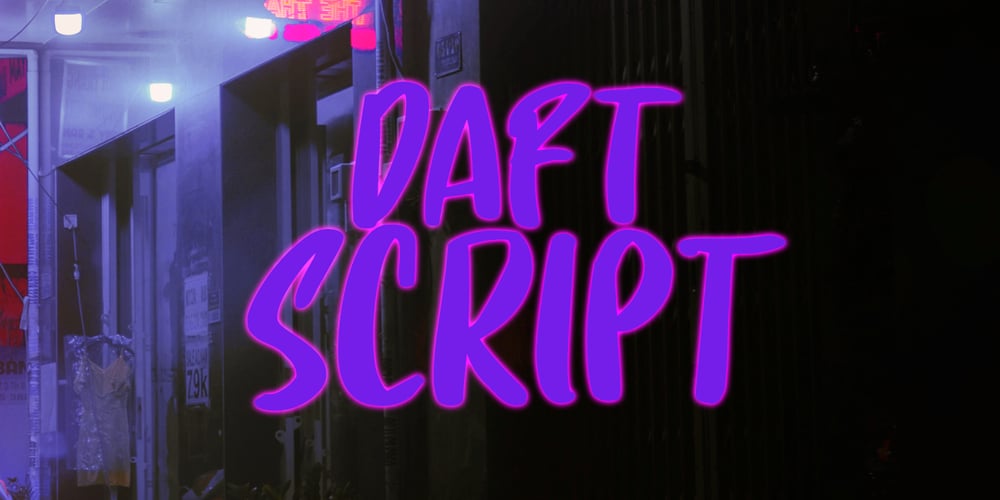
Daft Script
Daft Script font
Daft Script Font Family was designed by David Kerkhoff and published by Hanoded. Daft Script contains 2 styles and family package options. I really like creating script fonts. Why, I hear you say? Well, creating script fonts lets me be me. I am not trying to create classy, connected fonts for you to write love letters with: there are already too many of those available and quite frankly, I just don’t like them.I prefer the messy script fonts – uneven, no real baseline and with a bit of splatter or rough edges for good measure.Daft script is one of these messy script fonts: it was handmade and it comes with two alternates for the lower case glyphs that cycle as you type. This is an all-caps font, so that means you have 4 options per letter!I also love languages (I speak 6), so Daft Script comes with fantastic language support, including Vietnamese and Sami.